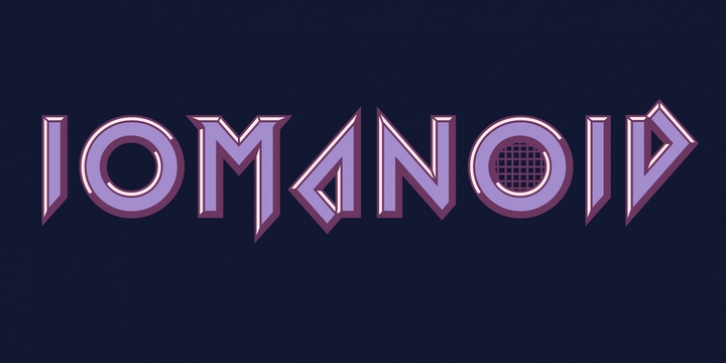
Publisher: Typodermic
Iomanoid is a video game inspired, mid-1980’s techno font. Use the transparent regular style or stack the back, front and shine layers.